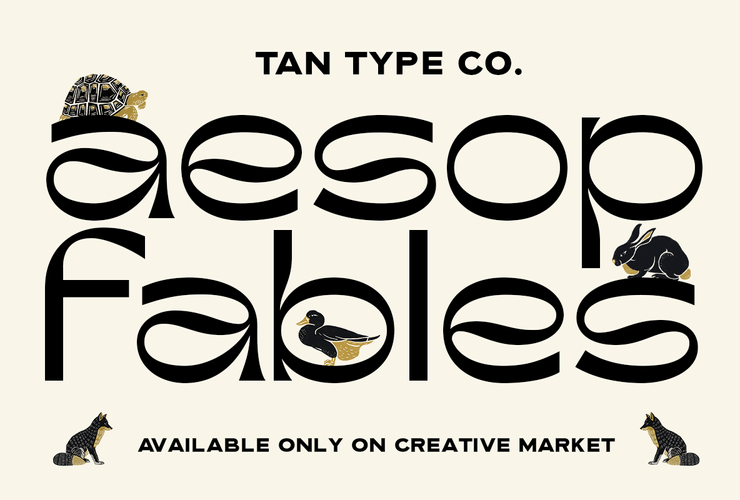
What makes Aesop worth a look is its reverse contrast, an unusual design choice explained further down. First, the practical part.
What “reverse contrast” means for Aesop
In most typefaces, vertical strokes are thick and horizontal strokes are thin. A reverse contrast font flips that: the horizontals carry the weight and the verticals are lighter. The effect is a little odd on purpose, and it is common in Wild West posters and some Art Deco lettering.
TanType’s own description is short. The listing calls TAN Aesop “a reverse contrast typeface with a modern and clean look.” Creative Market files it under Sans Serif and tags it Display, Modern, Art Deco and Vintage. Luc Devroye’s type archive, which catalogues TanType’s releases, lists it among the studio’s 2021 fonts as “a reverse stress art nouveau-style display typeface.”
So the sources agree on three things: it is a display face, it reverses the usual stroke contrast, and it borrows from early 20th-century decorative styles while staying clean. No weight range or extra styles are listed, so expect one display style.
Where Aesop fits
Reverse contrast draws attention, so it needs room and few words. Typical uses:
- Packaging and labels for cosmetics, candles, coffee or craft drinks.
- Logos and shop signs with a vintage or Art Deco angle.
- Book covers, posters and event titles.
- Large pull quotes in a magazine layout.
Avoid it for body copy. Heavy horizontals make small text harder to read than a conventional sans.
For pairing, let a quiet font do the reading work. Inter is a neutral sans that stays out of the way. If you want warmth, a classic serif such as Cormorant Garamond sits well with the Art Nouveau side of Aesop.
Is TAN Aesop a serif or a sans serif?
Creative Market classifies it as a sans serif. Its defining trait is reverse contrast, with heavier horizontal strokes than vertical ones.
Does TAN Aesop support accented letters?